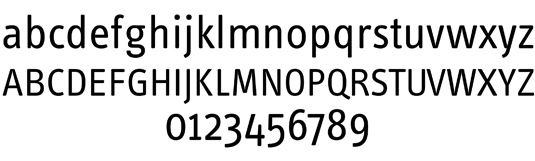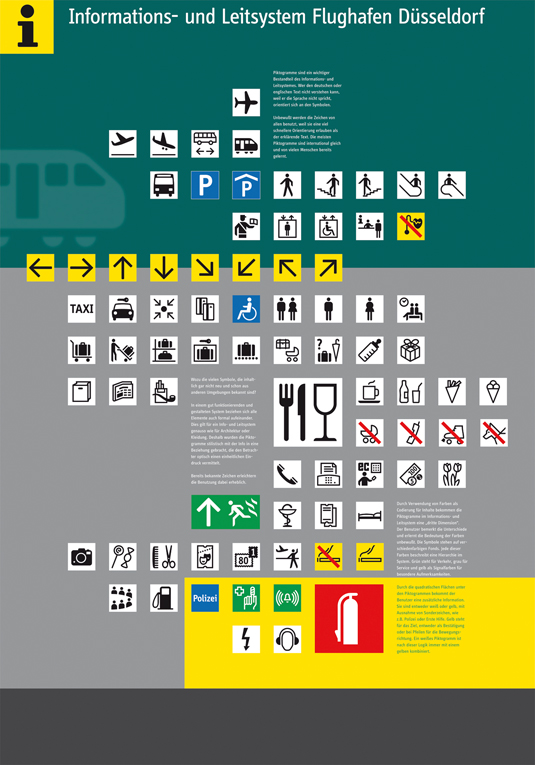
Greatest fonts countdown: 88 – FF Info
We're counting down the 100 greatest typefaces in existence. Here is number 88...
FontShop AG, the renowned type foundry, conducted a survey based on historical relevance, sales at FontShop.com, and aesthetic quality. With a few additions from the experts at Creative Bloq and Computer Arts magazine, the best fonts ever were selected for the new book, 100 Best Typefaces Ever.
But without further ado, here is the 88th best typeface…
88. FF Info
- Erik Spiekermann, 1996
On 11 April 1996, welding work at Düsseldorf Airport caused a devastating fire with Terminals A and B destroyed. It was decided that flights would be scheduled to resume in time for the summer holidays. Within six weeks, MetaDesign had designed a system of signage to guide passengers safely through the tents and temporary halls. The typeface chosen for this purpose was based on a 1988 design created by Erik Spiekermann for the Italian pharmaceutical company Fidia.
The new FF Info was easy to read and economical, and its rounded corners were an advantage when it came to plotting the type quickly. Months after airport business had returned to normal, FF Info was expanded with Ole Schäfer’s help to include a body text version for printed materials. The FF Info Pro Collection contains 28 fonts in total.